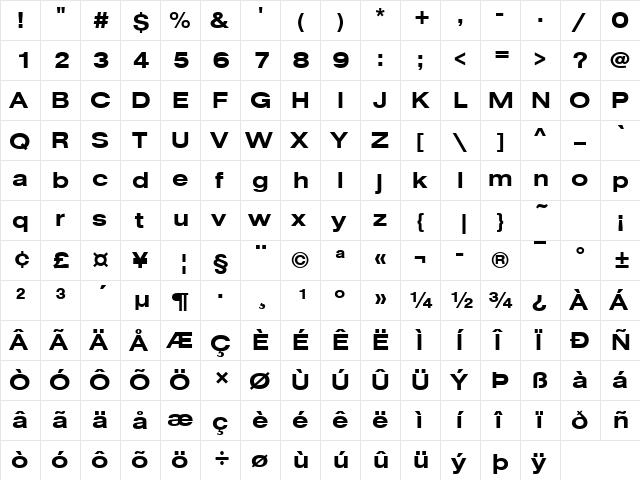
Nimbus Sans Becker DExt Bold
Design Context for Nimbus Sans Becker DExt Typeface
Nimbus Sans Becker DExt takes a measured approach to typography — its balanced proportions and neutral character make it a reliable workhorse for both digital and print work. The heavy weight commands attention and anchors typographic hierarchies.